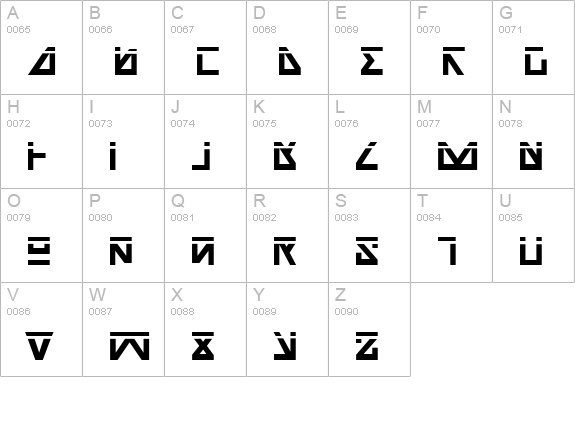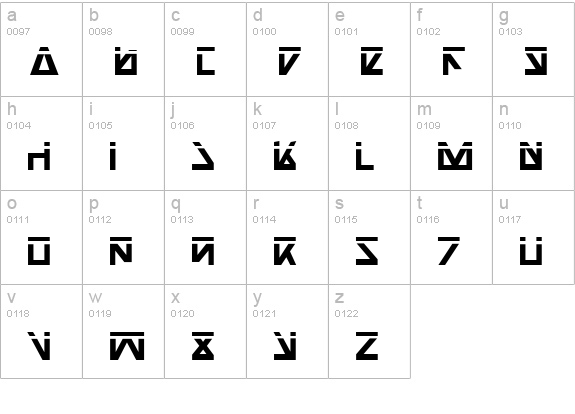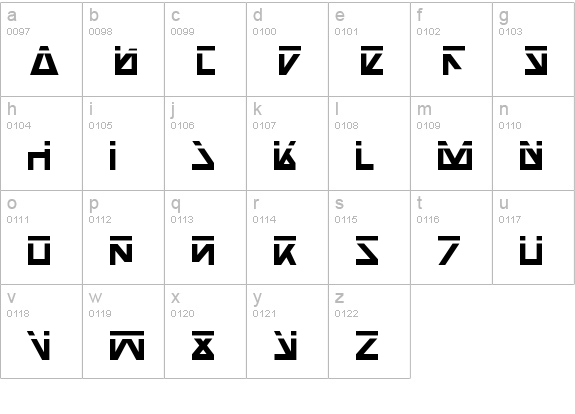
Nick Turbo Bold Laser Font Details
Nick Turbo Bold Laser is a strong, high-contrast variant in the Nick typeface family \xE2\x80\x94 well suited to headlines, attention-grabbing titles, and strong calls-to-action.
Introducing Nick Turbo Bold Laser font, a modern and dynamic typeface designed to make a bold statement. This sleek and futuristic font is perfect for projects that require a strong and impactful visual presence. With its sharp lines and edgy design, Nick Turbo Bold Laser font commands attention and exudes confidence. Best of all, Nick Turbo Bold Laser font is available for free download at FontsMarket.com. Whether you're working on a branding project, poster design, or any other creative endeavor, this font will bring a sense of energy and style to your work. Don't miss out on this opportunity to elevate your designs with the striking look of Nick Turbo Bold Laser font. Download it now and let your creativity shine!